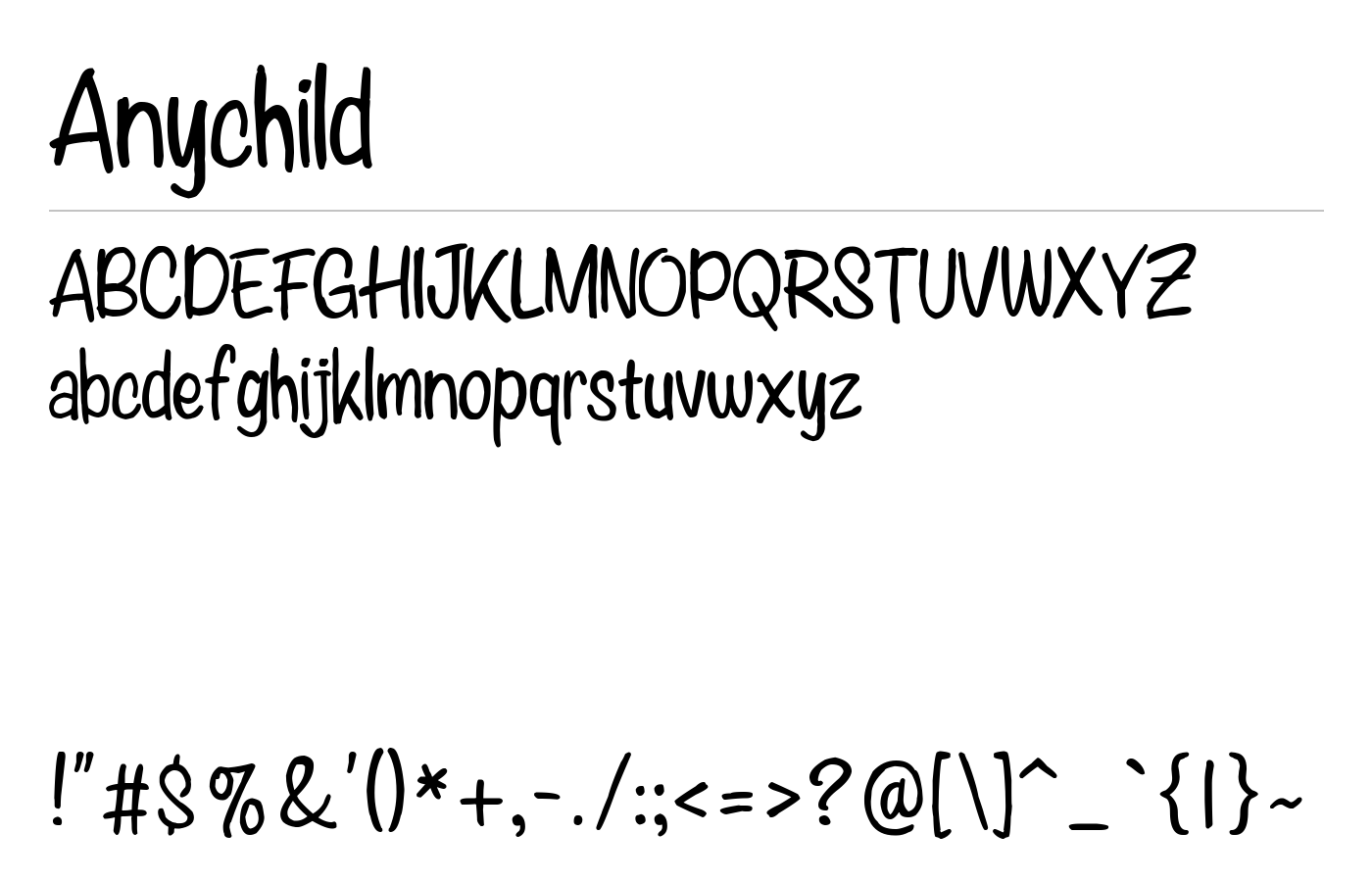
Anychild Font is a playful, hand-drawn sans serif typeface with a casual and friendly feel. Its irregular, slightly tall letterforms and organic stroke style give it a lively, approachable personality, making it perfect for informal designs, children’s products, or creative projects that want to convey warmth and individuality. This font works well in headlines, logos, and packaging where a personal, handmade touch is desired.
Anychild Font
About Anychild Font
| Designer | Nico Muslib |